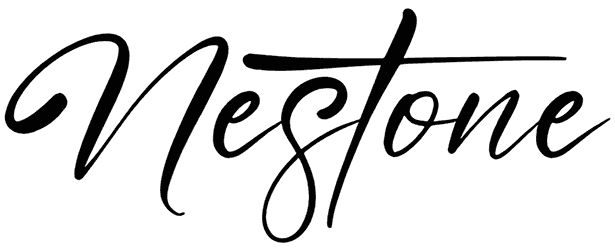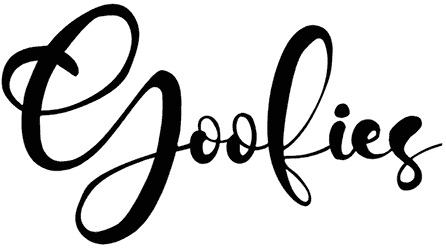
Ralins Script Font
This offer has the power to add a charming and elegant visual to your words. Ralins Script font has smooth and natural lettering that is going to surprise your followers even without numbers and punctuation marks. Let’s set this calligraphy font on your next masterpiece, like a fashion designer’s signature or something, and show off your creative ideas.